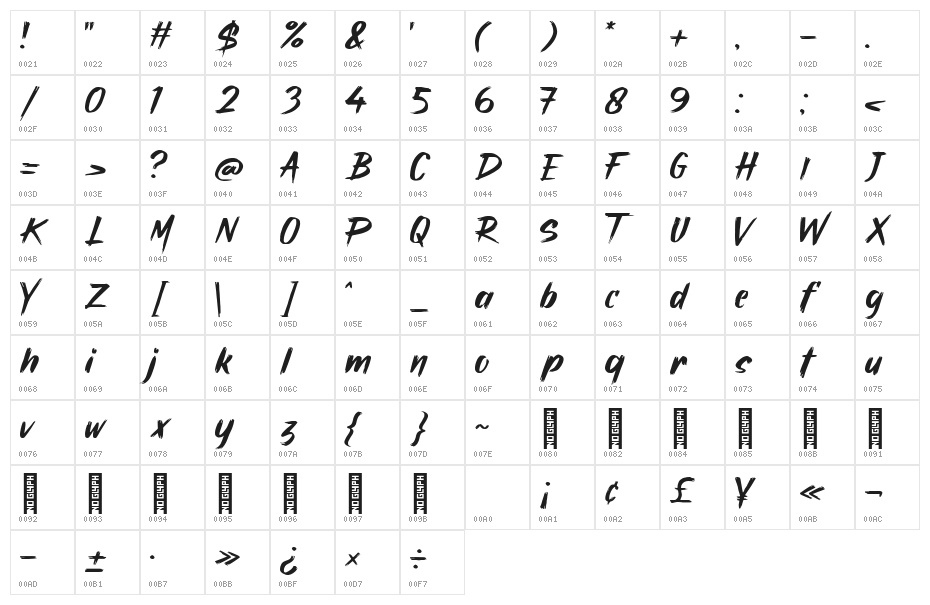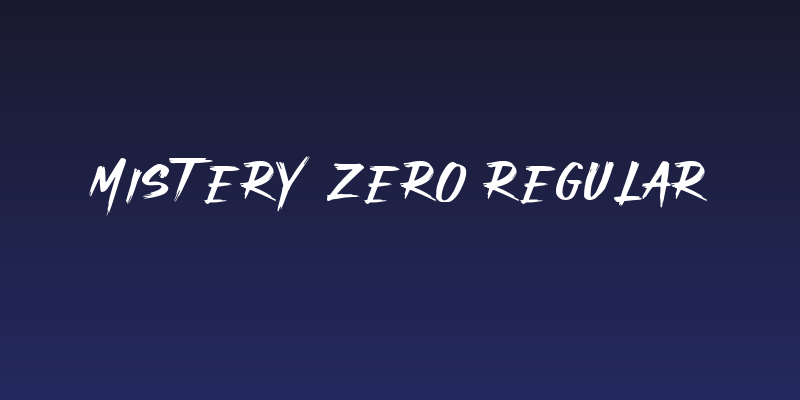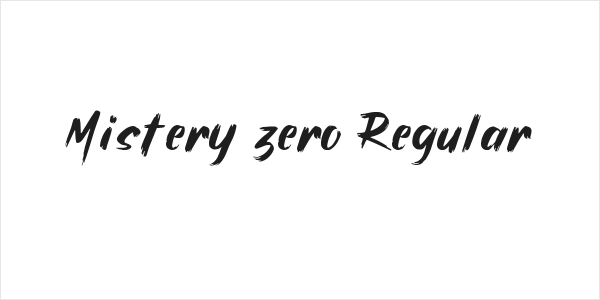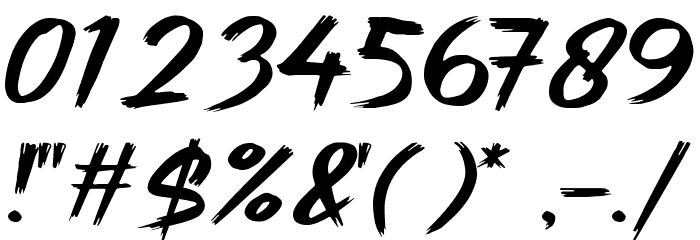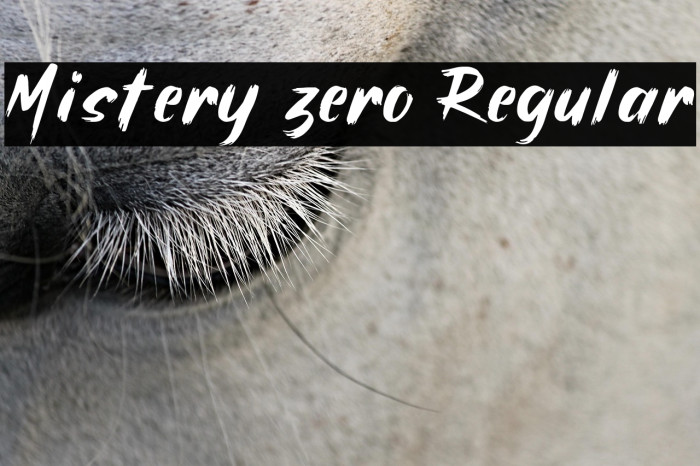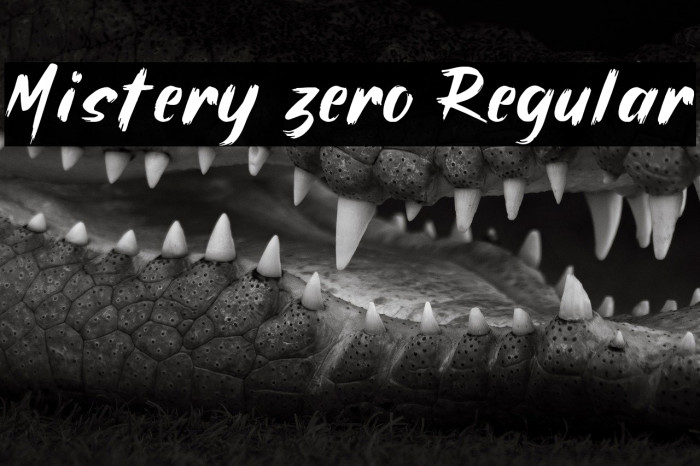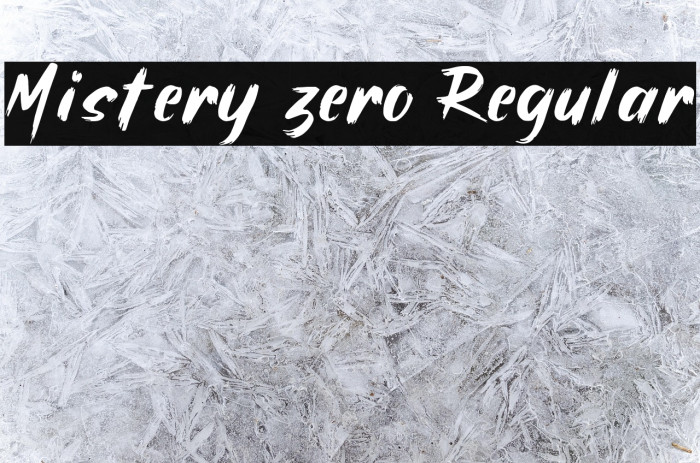
Mistery zero Regular Font
Mistery zero Regular Description
This font features a dynamic and energetic brush script style, characterized by its bold and expressive strokes. The letters are crafted with a sense of movement, giving them a lively and spontaneous appearance. The uppercase and lowercase letters maintain a consistent style, with sharp edges and varying stroke widths that add to the overall dramatic effect. The numbers and special characters follow the same aesthetic, ensuring a cohesive look across all glyphs. This font is ideal for projects that require a bold and artistic touch, making it perfect for creative designs that aim to capture attention.
| Proposed Projects | Ideal for posters, branding, packaging, and artistic projects that require a bold statement. |